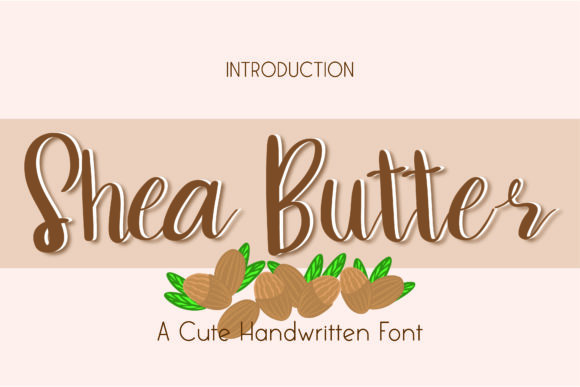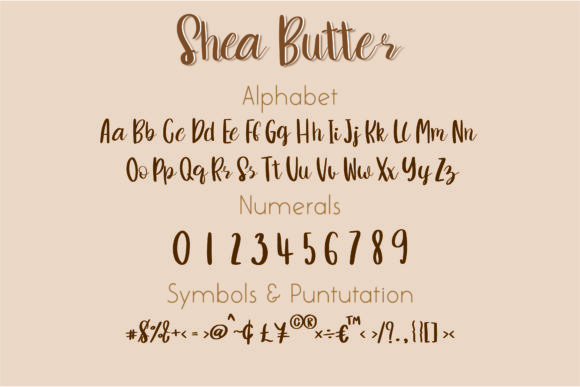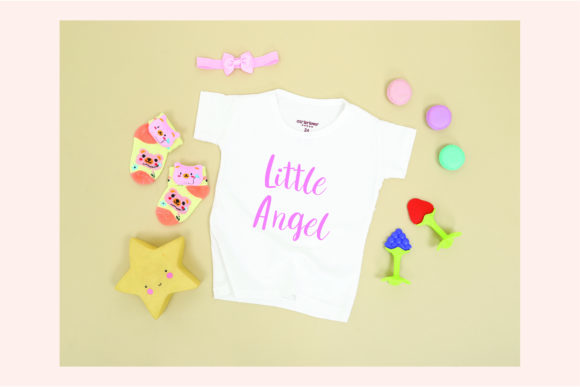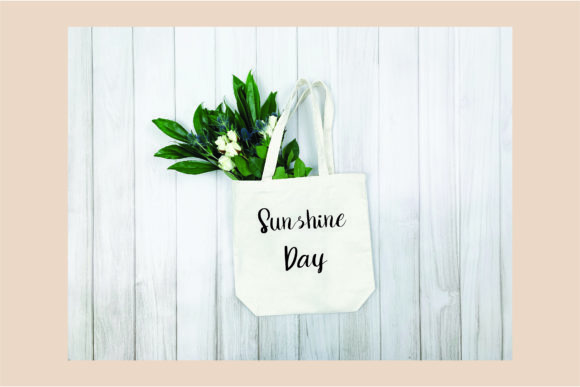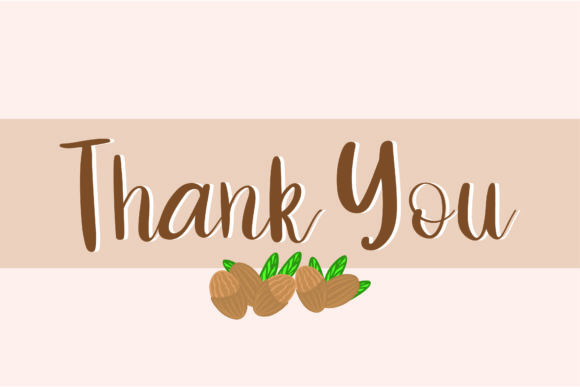
About Shea Butter Font
Shea Butter is a whimsical script font with a relaxed theme, featuring a lovely style. No matter the topic, this font will be an incredible asset to your fonts’ library, as it has the potential to elevate any creation.